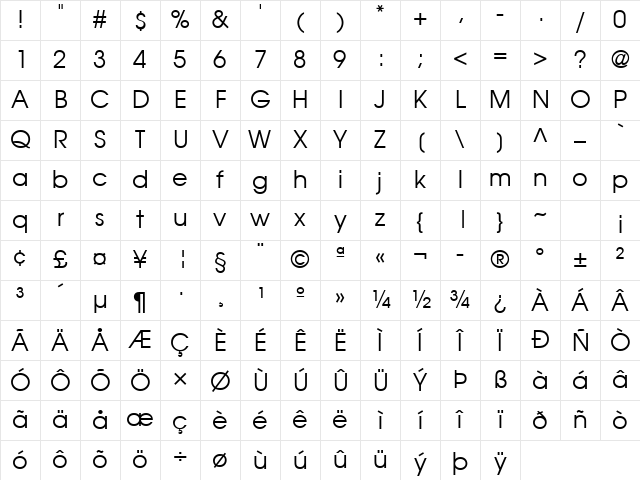
AvantGarGotItcL Regular
AvantGarGotItcL Family
Design Context for AvantGarGotItcL
AvantGarGotItcL is a composed and adaptable typeface that performs quietly and consistently across a wide range of design contexts.